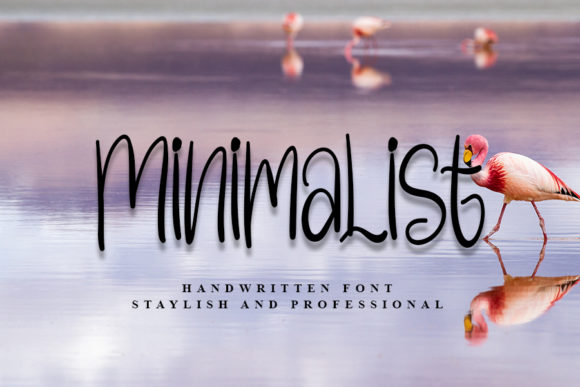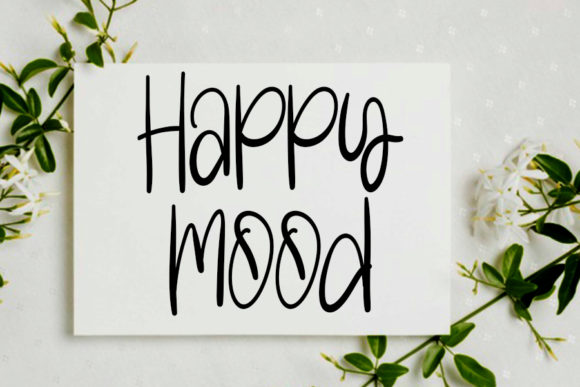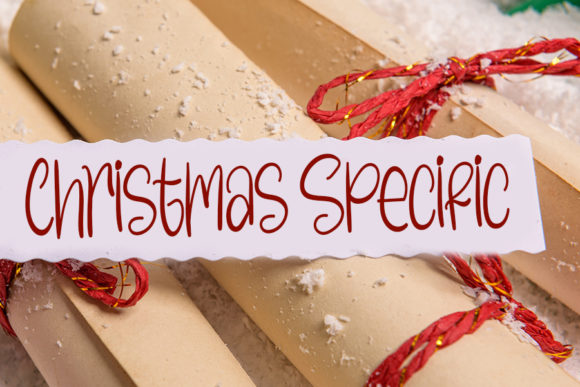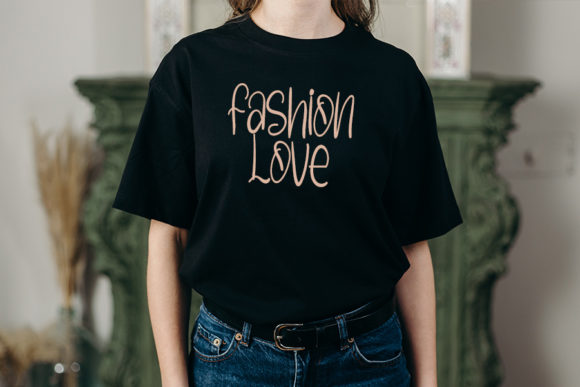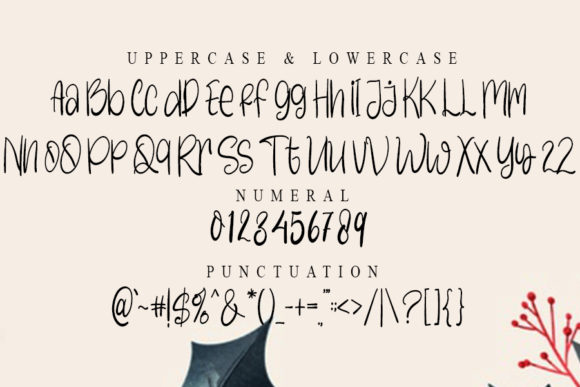
Minimalist Font
About Minimalist Font
Minimalist is a lovely handwritten font. Not too thin and not too thick, balanced and varied, this font was designed to enhance the beauty of your projects.